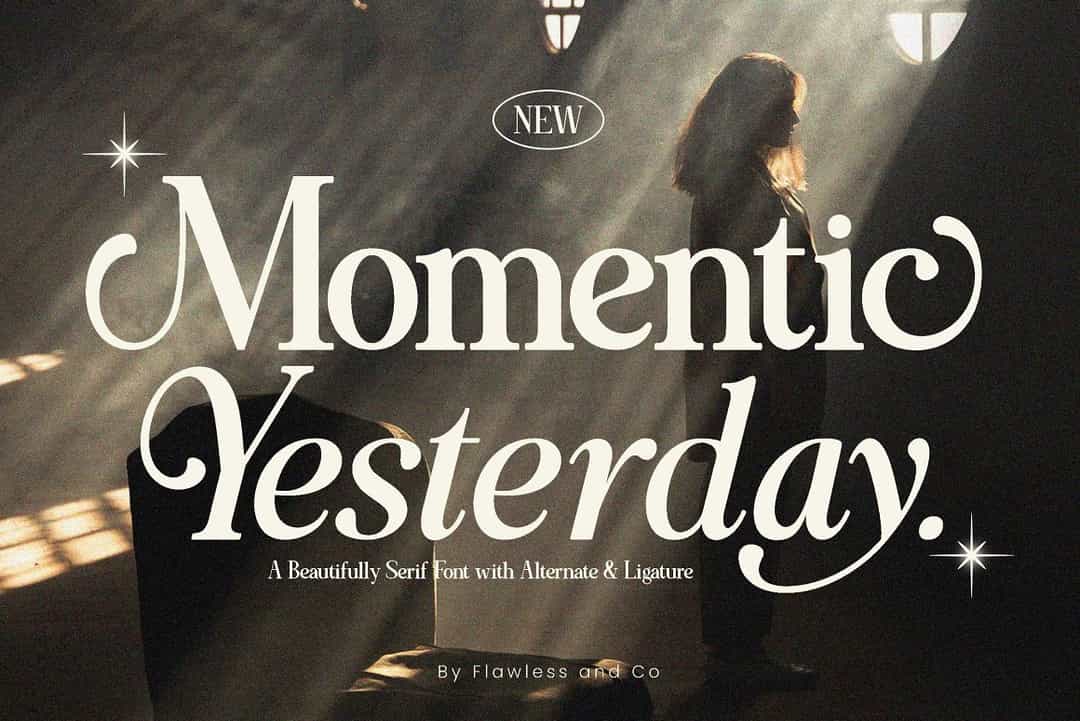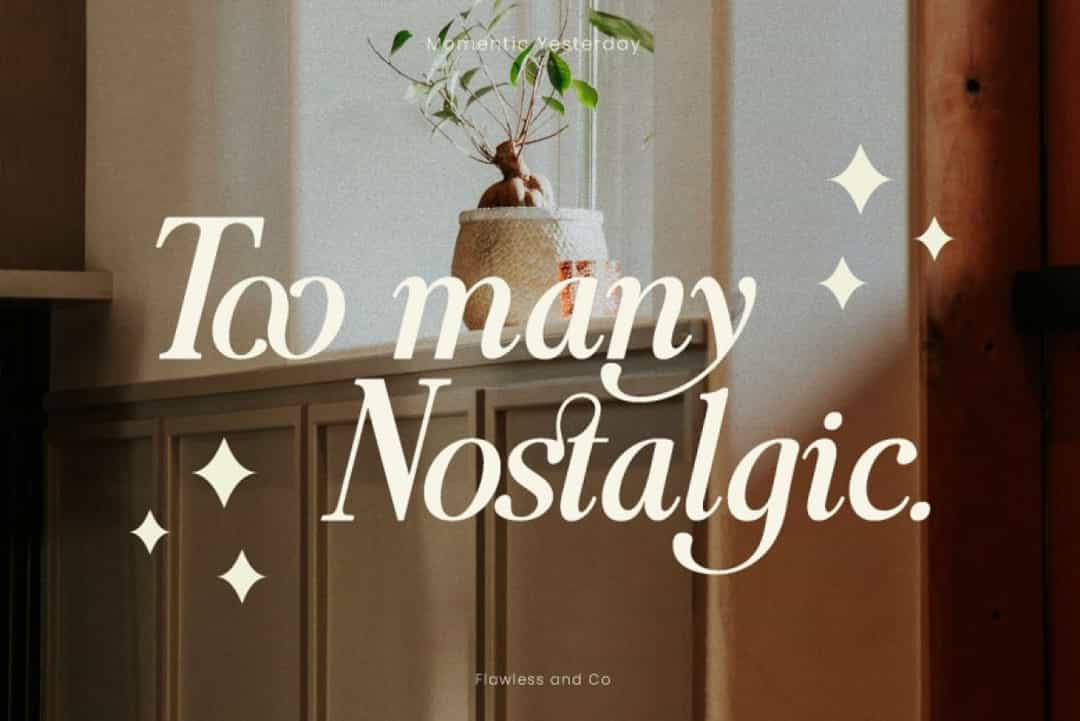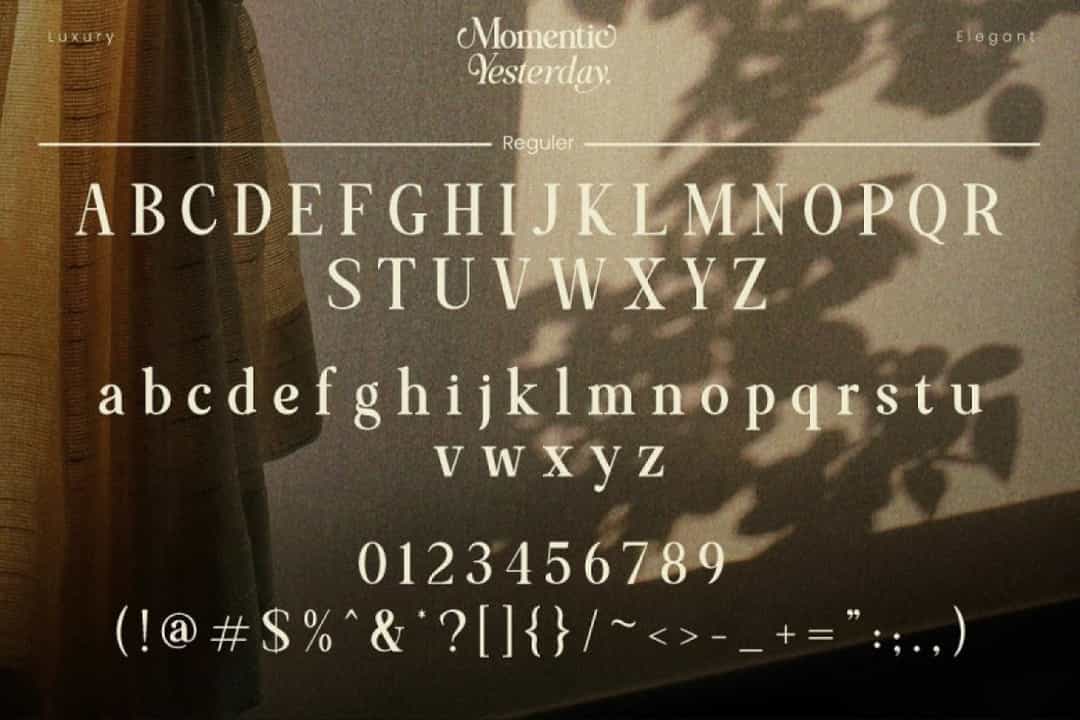
Momentic Yesterday is a Serif Duo Font with chic and retro designs in each character, making it ideal for use as wedding invitations. Additionally, some letters can be combined together or alternative options may be suitable for other graphic designs including T-shirt branding, branding materials, prints, business cards posters logos t-shirt photos quotes etc.